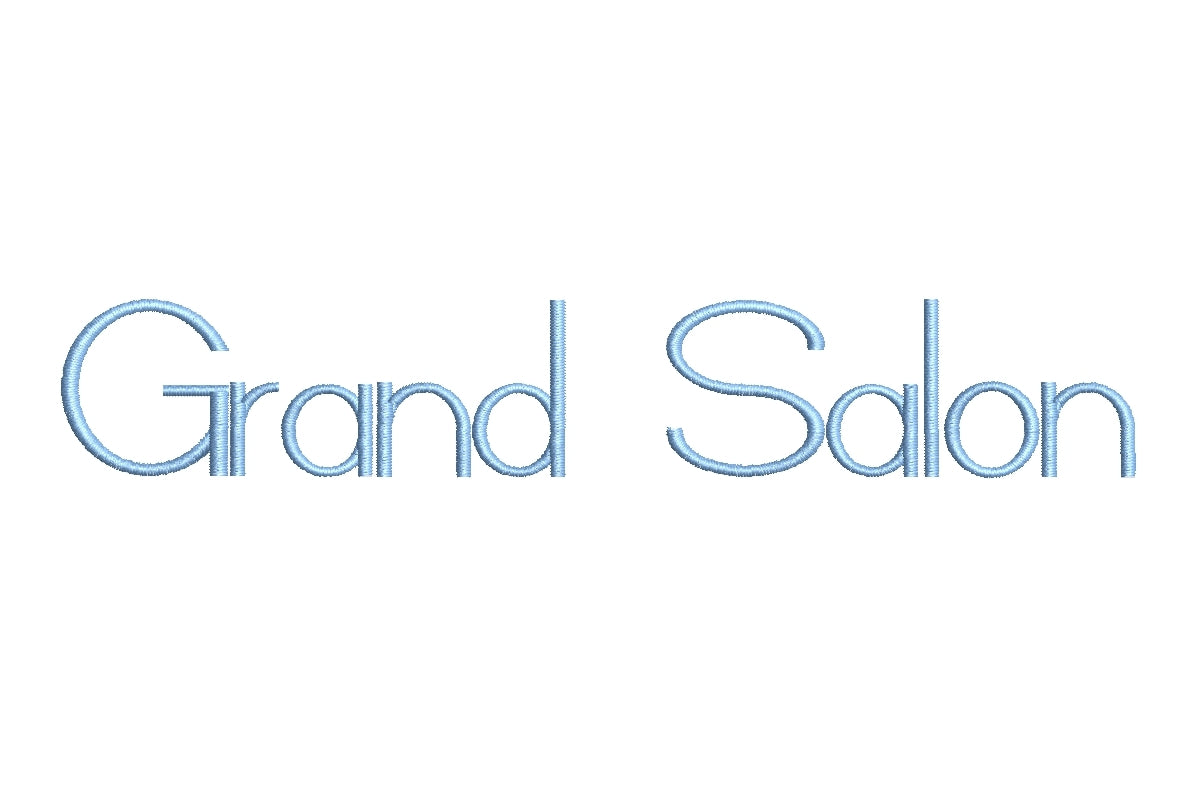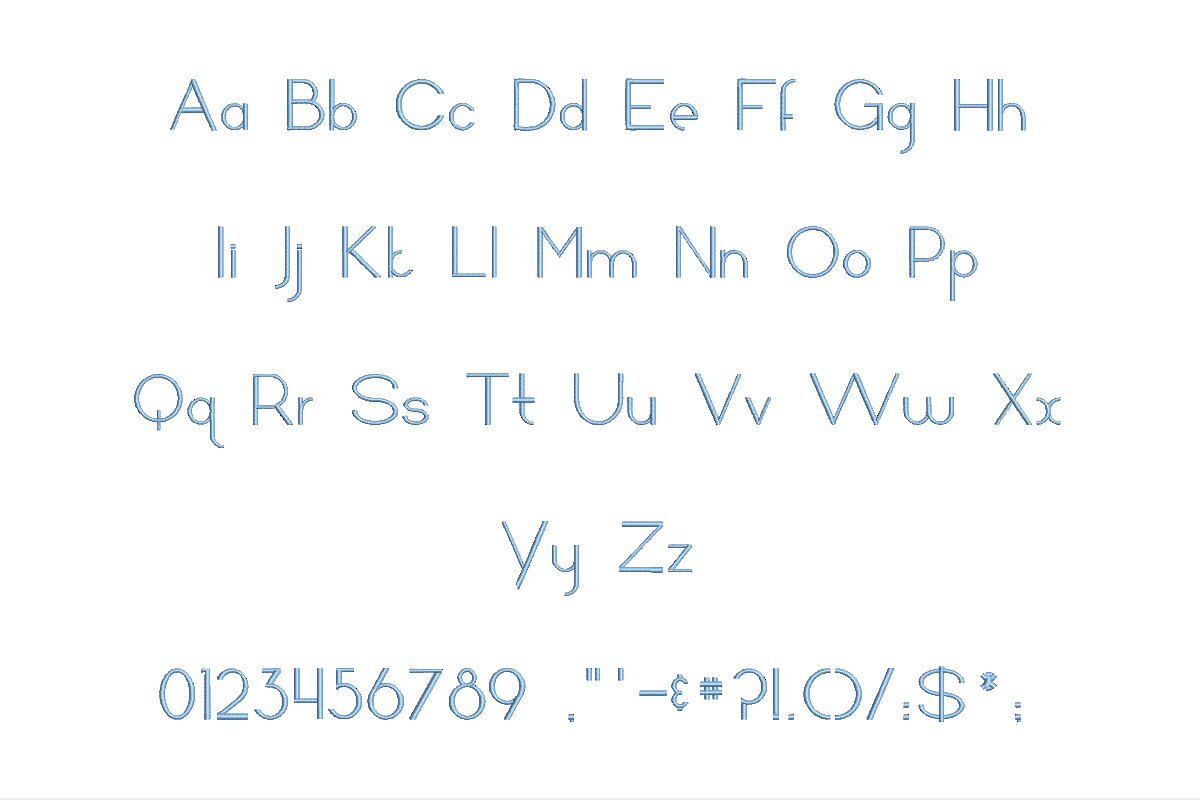
Introducing the Grand Salon ESA Font, your doorway to embroidery opulence. This font seamlessly blends with Wilcom Studio e4.5.6 and Hatch 3 versions and beyond, ensuring a luxurious compatibility. Whether you're a seasoned embroiderer or a newcomer, Grand Salon ESA simplifies your creative journey. Its effortless integration with Wilcom Studio and Hatch guarantees smooth digitizing and stitching. Crafted with meticulous attention, this font exudes timeless elegance and opulent charm. Elevate your embroidery projects with the Grand Salon ESA Font, adding a touch of grandeur to your designs. Order now and experience opulence in every stitch, reaching remarkable results with ease.